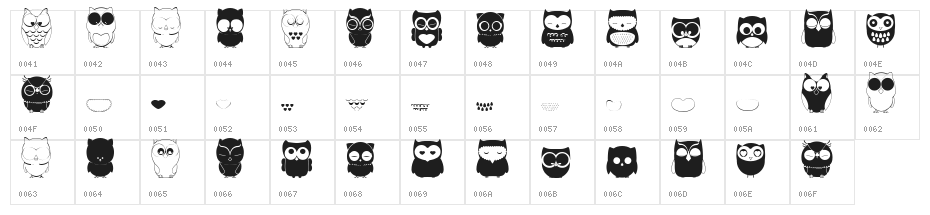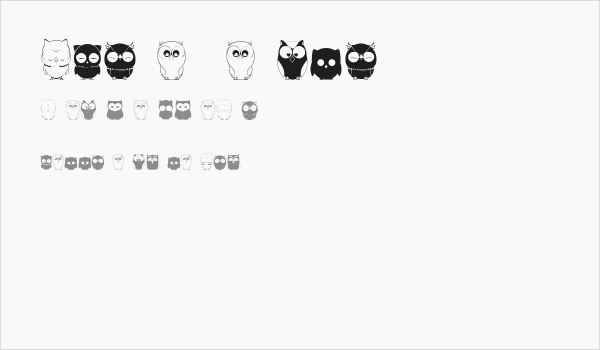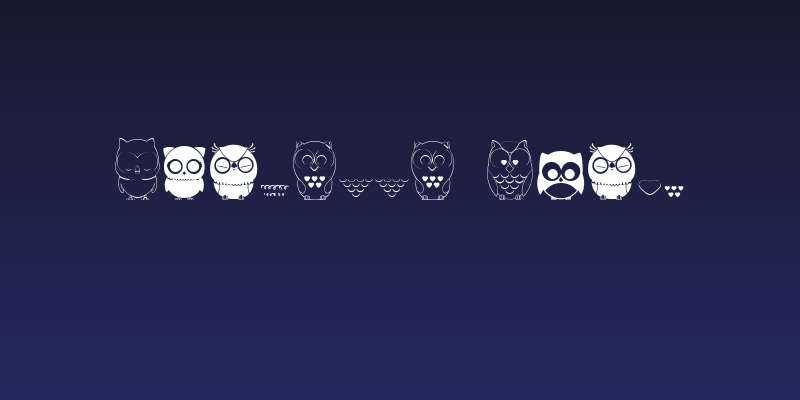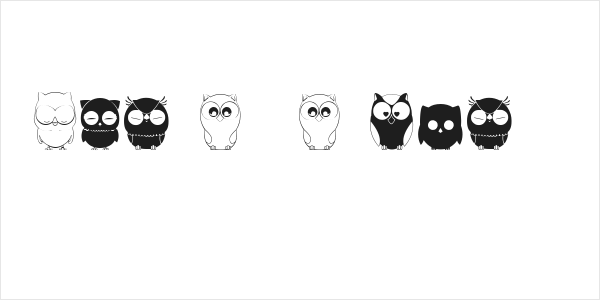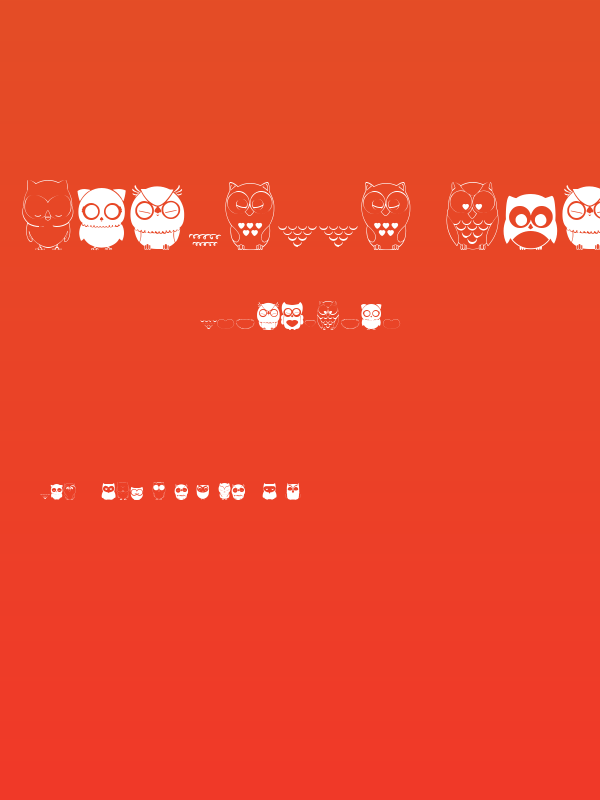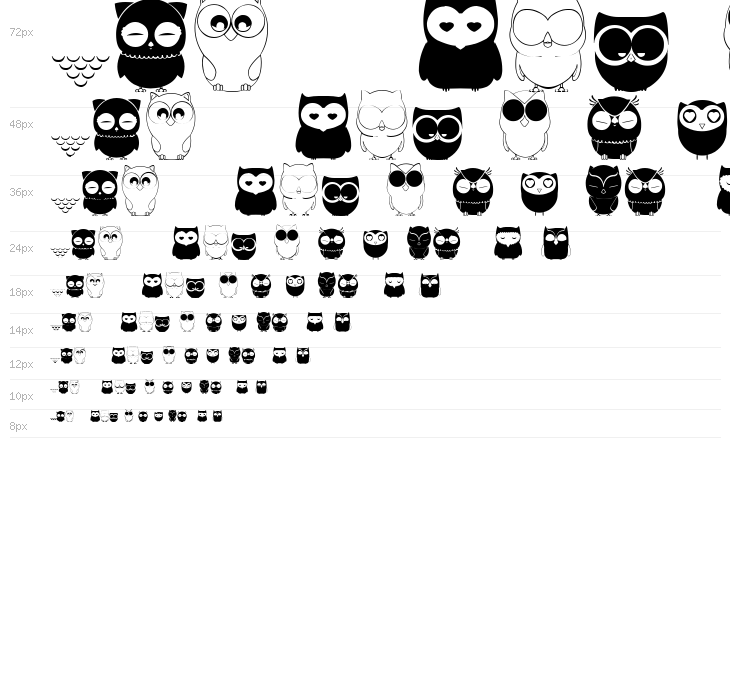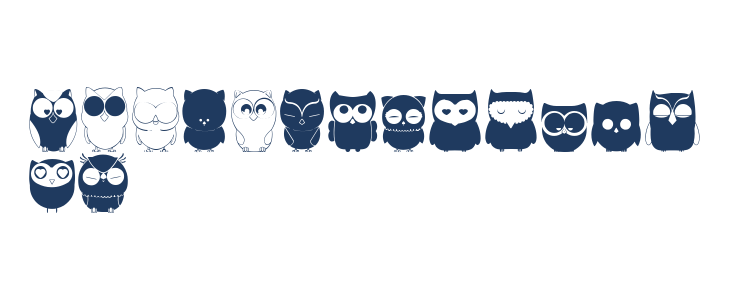
Chouette alors Font
Chouette alors Description
| Overall Style | Playful, Whimsical, Decorative |
| Use Case | Illustrative elements, Logos, Craft projects, Themed invitations |
| Proposed Projects | Children’s books, greeting cards, educational materials, scrapbooking, playful branding, decorative borders. |